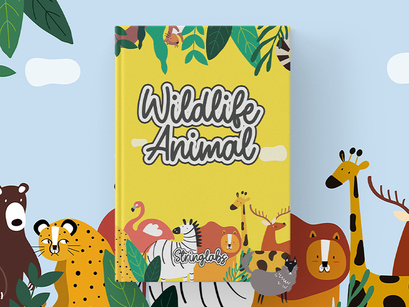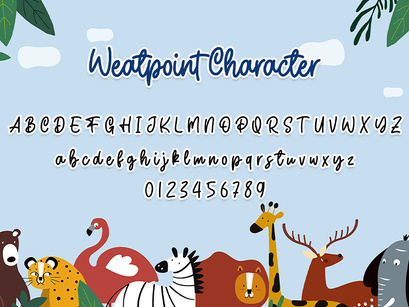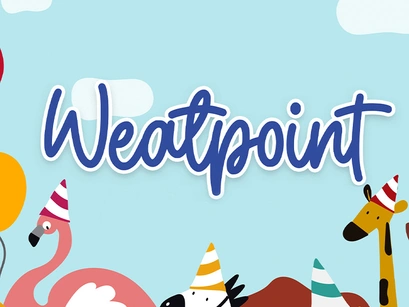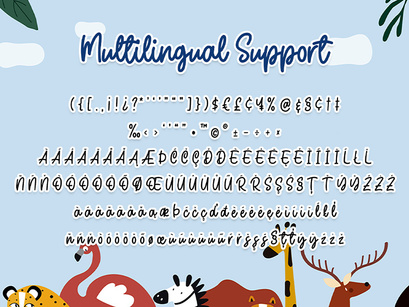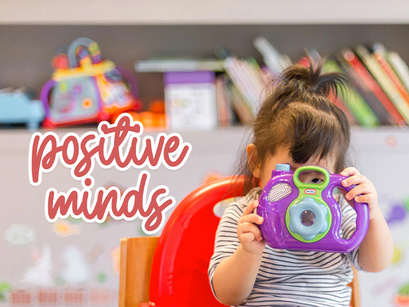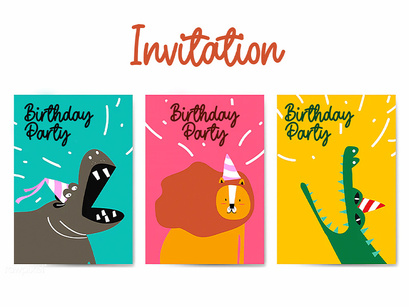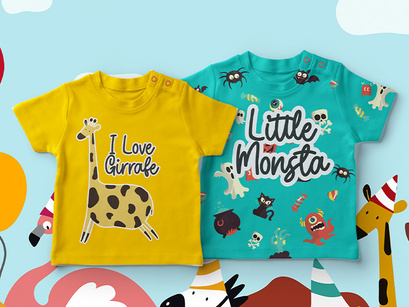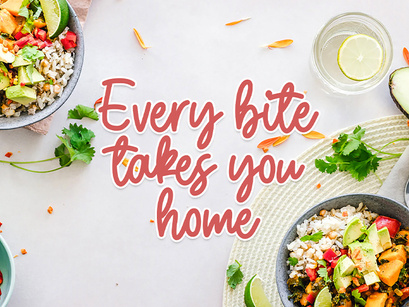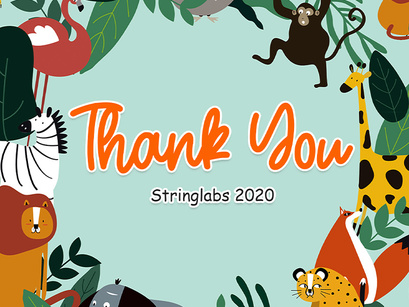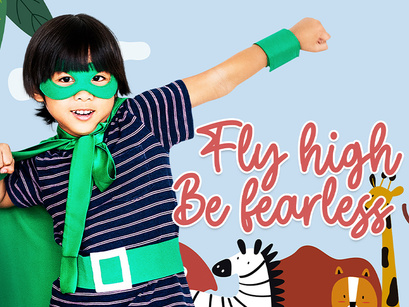
Weatpoint - Playful Script Font
Introducing Weatpoint - Playful Script Font
This font is perfect for those of you who want the style of children. Fonts Made specifically for purposes such as: Kindergarten, Birthday, Kid, Cartoon, Comic, Children, and Playground.
This Font Template contains Modern, Elegant, Creative, Professional and Unique Concept.
• Uppercase and Lowercase letters
• Numbering and Punctuations
• Ligatures
• Multilingual Support